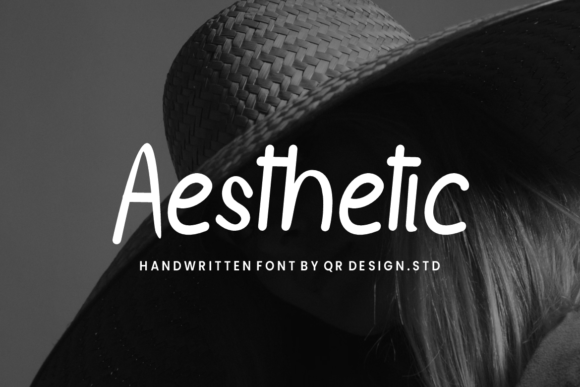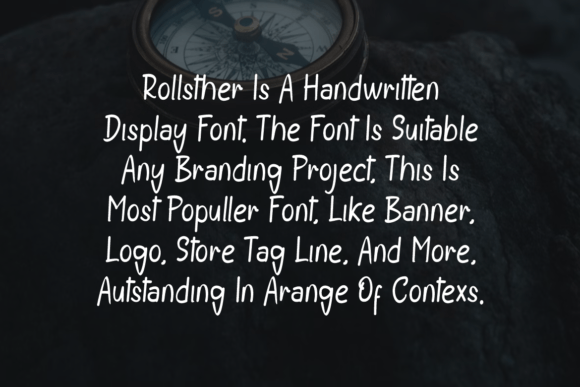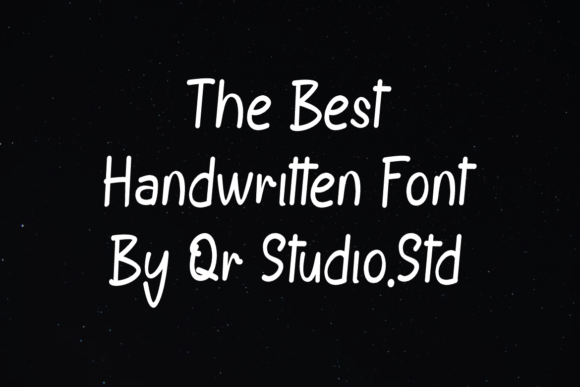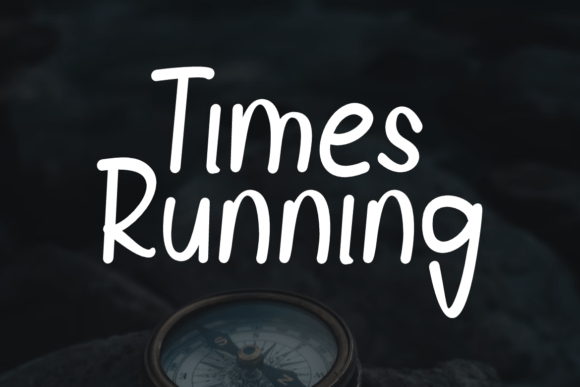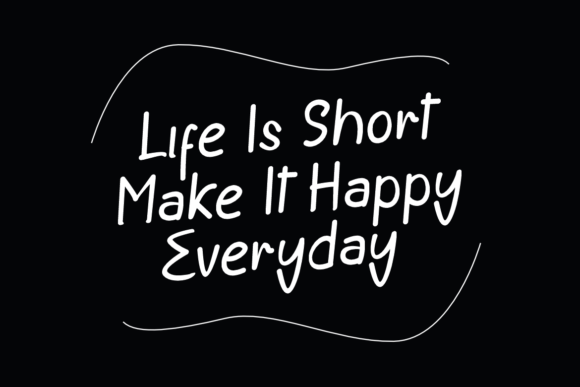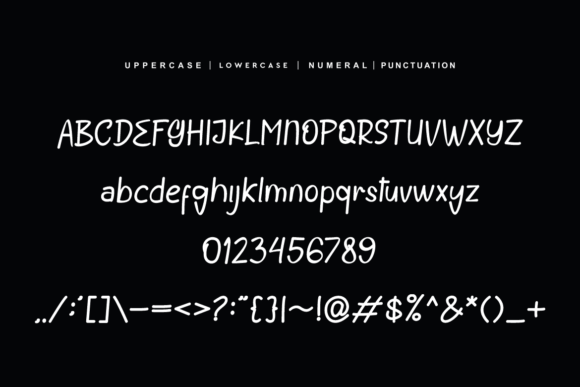
Introduction to Rollsther Font
Remember that moment when a font spoke directly to your creative soul, and you knew you had to use it for your next project? For designers, it’s a treasure hunt for the perfect typography that can elevate their work from ordinary to extraordinary. That’s exactly what happens when you discover the Rollsther Font – a Handwritten and authentic display font that’s about to become your new design best friend.
Whether you’re working on a branding project, creating a logo, or designing for a sports event, the Rollsther Font is an outstanding choice that will add a personal touch to your work. Its versatility and high-quality design make it an invaluable resource for designers who crave unique and creative typography. And the best part? It’s available for free download, perfect for designers on a budget or those who just want to experiment with new design ideas.
Key Features of Rollsther Font
- High-quality design resource ideal for creative projects with a modern aesthetic.
- Perfect for use in logos, branding materials, and other visual identity elements where a unique and eye-catching font is desired.
Honest Review: Rollsther Font
As a designer, I’m always on the lookout for high-quality design resources to elevate my creative projects. Recently, I came across the Rollsther Font, which caught my attention for its unique and modern aesthetic.
- ✨ Unique and modern design style that can add a touch of sophistication to any project
- ✨ Includes a transparent background option, allowing for seamless integration into any design
- ⚠️ Limited character set, which may not be suitable for complex or lengthy text-based projects
- ⚠️ May require additional formatting to achieve the desired look and feel
Overall, I’m impressed with the Rollsther Font’s potential to elevate my designs. While it may have some limitations, its unique design style and high-quality aesthetic make it a valuable addition to my design resource library.
The Rollsther Font is a high-quality design resource ideal for various creative projects. It offers a transparent background, making it easy to integrate into your design.
Tips for Getting the Most Out of Rollsther Font
To get the most out of the Rollsther Font, experiment with different font sizes, colors, and styles. Combine it with other design elements to create a unique visual identity.
The Rollsther Font is suitable for various design projects, including:
- Brand identities
- Graphic designs
- Web designs
Pacifico Font is a great alternative to Rollsther Font for projects that require a clean, minimalist look. While Rollsther Font has a more playful feel, Pacifico Font is more laid-back and easy to read.